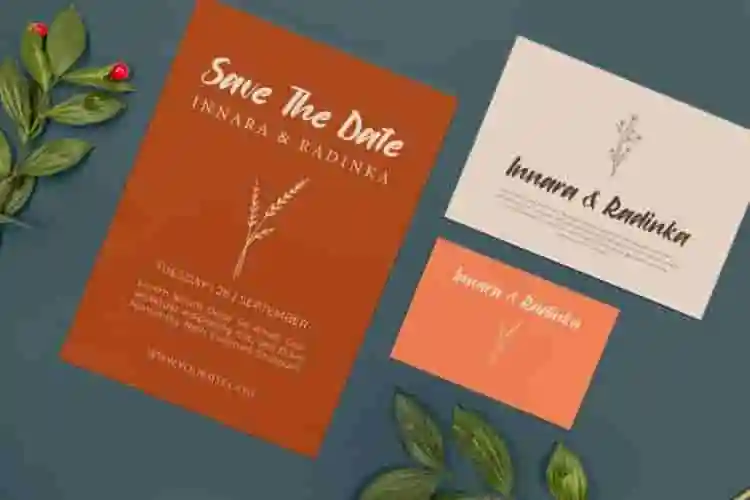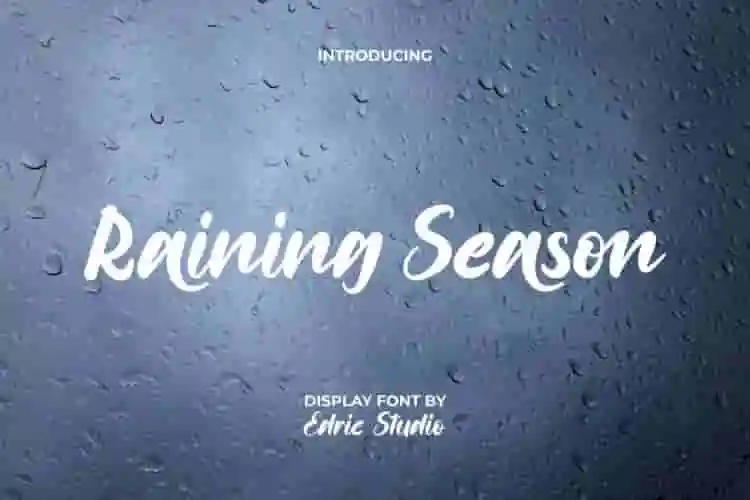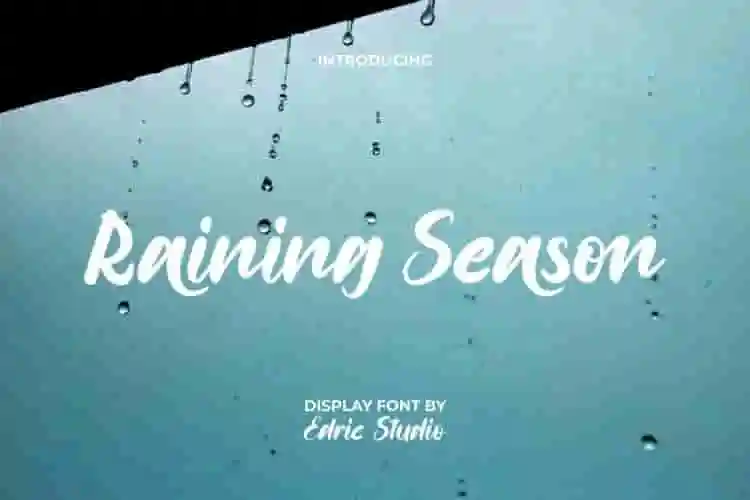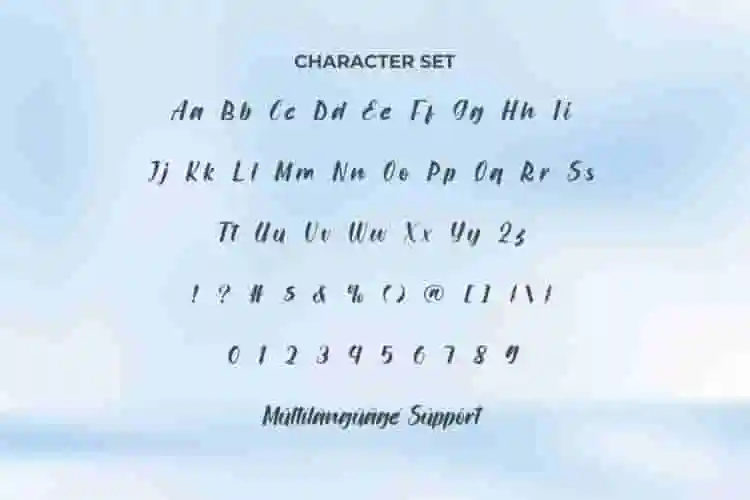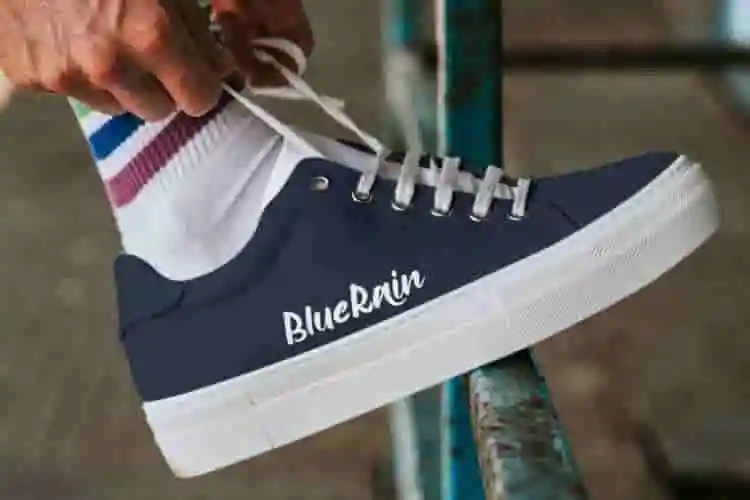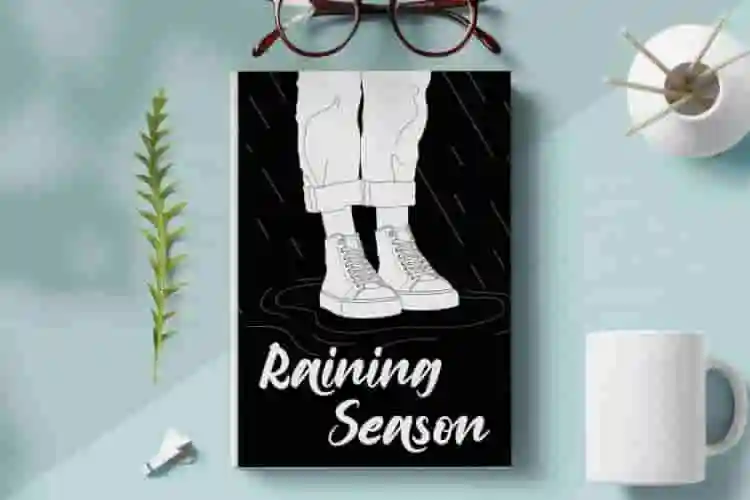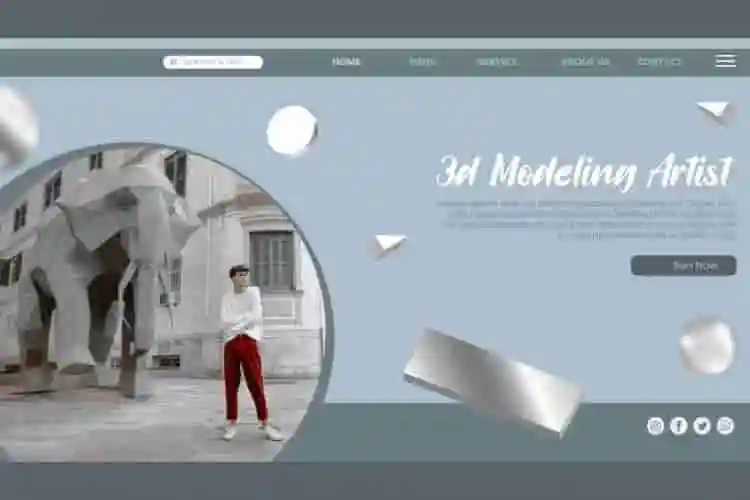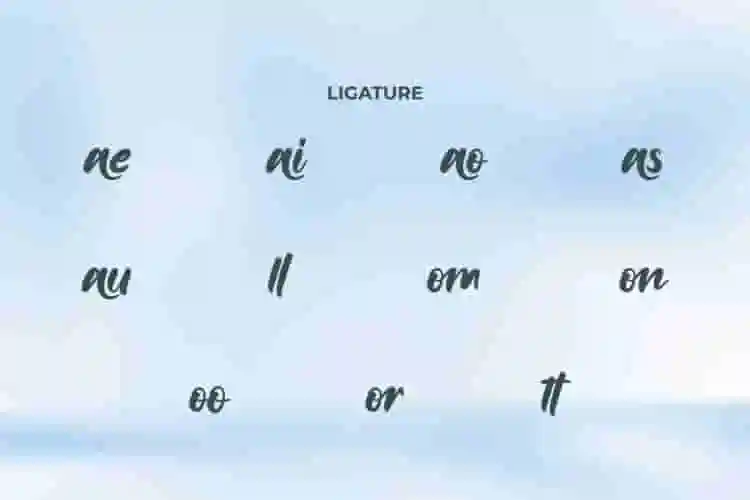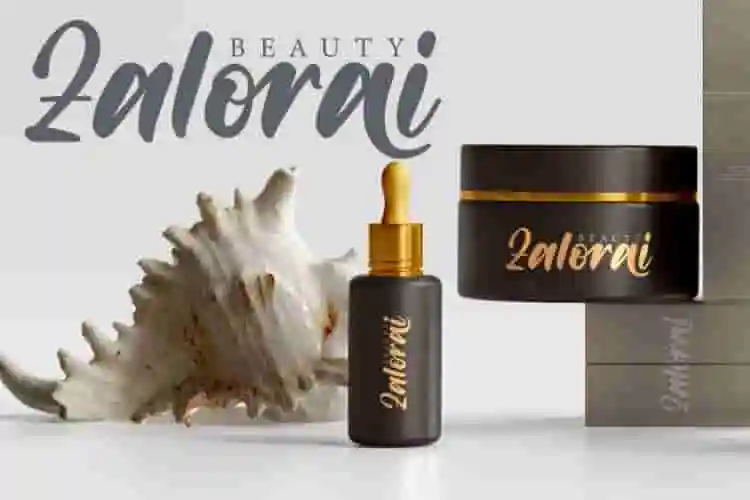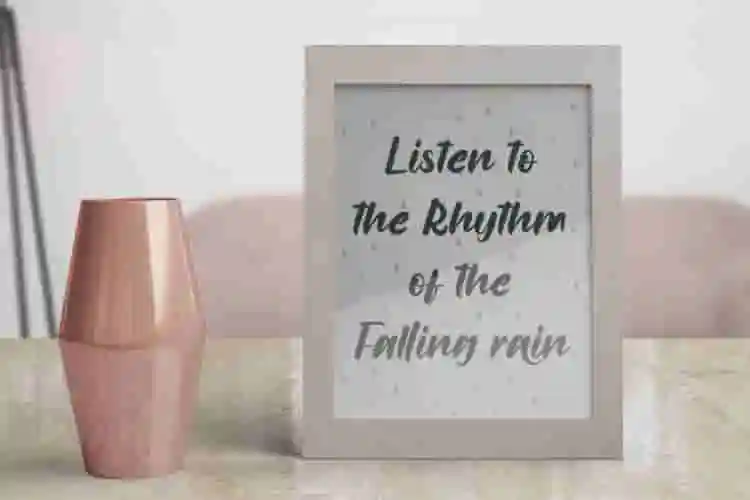
Raining Season Display Font
Raining Season Font is a modern calligraphic script display font with an artistic touch designed by EdricStudio. This typography has a thick brush shape and similar to cursive letters because it’s basically inspired by calligraphy which will be suitable for any industry, such as, artist, fashion, furniture, restaurant, handicraft, printing, publishing, shoe brand, skincare, wedding, writer, and many more.
Raining Season Font comes with a full set of Uppercase and Lowercase Basic Characters, Number, a large range of Punctuation and Symbol. It has a stunning characters set, perfectly managed with well spaced and kerning. Raining Season Font also comes with additional ligature characters, will be able to complement for any project (with extended license) including: brand logo, brochure, header, invitation, product packaging, quote, screen print, sticker, website, etc.
Introducing Raining Season, a unique display font that captures the moody, artistic feeling of rainy days. Designed with expressive curves and dramatic strokes, this font brings atmosphere, emotion, and elegance into your design work.
Whether you’re crafting moody posters, book covers, poetry zines, or aesthetic social media graphics, Raining Season sets the perfect tone. It’s melancholic yet stylish—ideal for designers who love depth and storytelling in their typography.
Let your designs speak with emotion using Raining Season, a dramatic display font inspired by the quiet power of rain. With bold strokes, artistic curves, and a slightly distressed look, this font evokes the mood of overcast skies, poetry, and introspection.
• Expressive Letterforms
• Strong Visual Impact